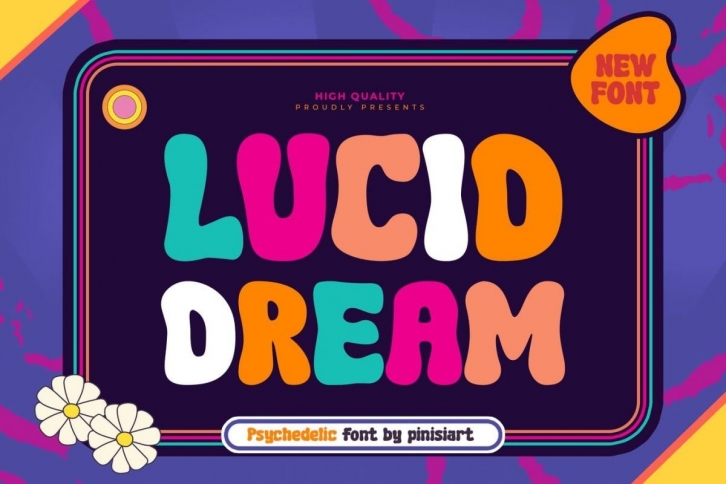
Lucid Dream is a fun psychedelic display font inspired by the late 70s era. Retro and groovy, it is perfect for book covers, music album covers, stationery, groove party invitations, posters, Youtube covers, thumbnails, social media posts, and many more. Add it now to your fonts library, and let it inspire your creativity!